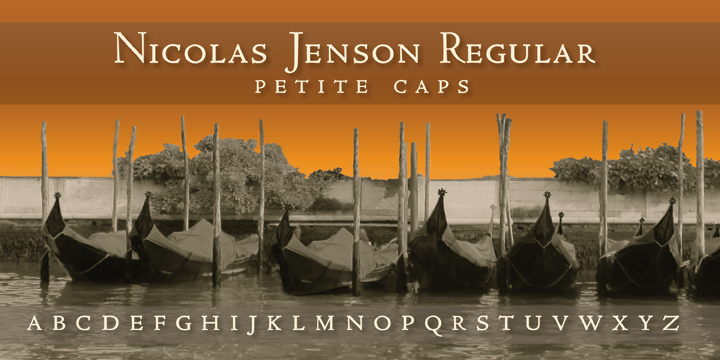
Nicolas Jenson OT Caps and Petite Caps (2 fonts)
Design revival by Jim Spiece, Nicolas Jenson is a family of 10 fonts; Regular to Extra Bold, corresponding Italics, Roman Small and Petite Caps, Alternate characters and an “Open” style. This typeface is elegant and understated. It feels very classic without looking outdated even though the design is over 500 years old. It is suitable for setting books and magazines, used as large drop caps, and for many other design applications. Nicolas Jenson is a good choice for holiday cards, invitations and other printed ephemera.
Jim Spiece enjoys resurrecting old typefaces. And finding a complete set of characters can often be a challenging task. It takes him down into the musty basements of public libraries and out into the world of flea markets and hole-in-the-wall bookstores. After careful scanning and hand-outlining, he must occasionally dig deeper for a missing punctuation mark or double f-ligature. Jim chuckles, 'These are all minor inconveniences when you consider you've brought these faces back from obscurity and found them new homes. Besides, it's fun. In one sense, my own designs are a lot easier because they never had a previous life!' You can check out Jim's revival of the Bernhard Gothic SG Family offered by FontHaus or his popular ITC Blair Family.